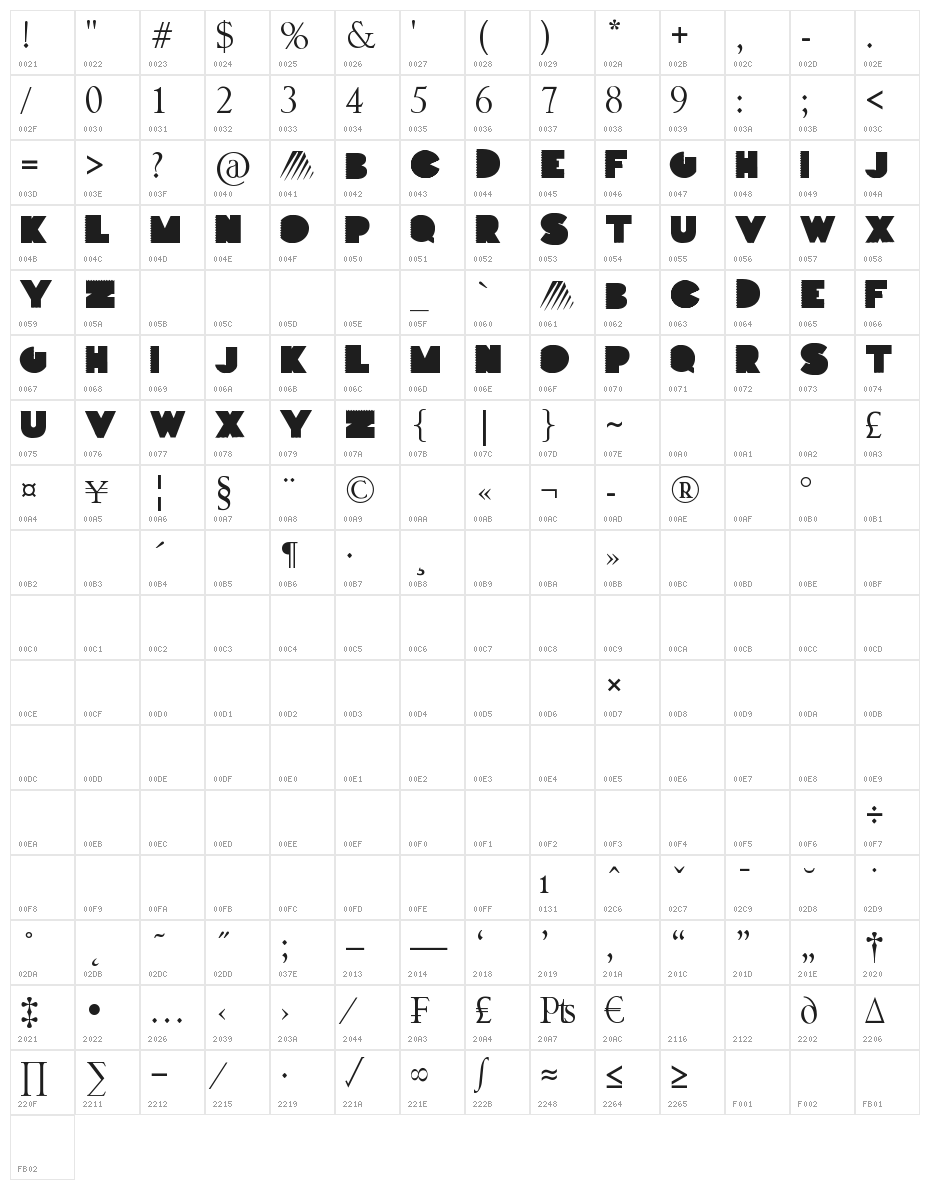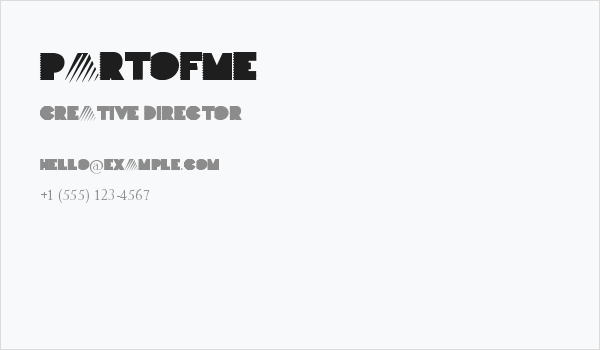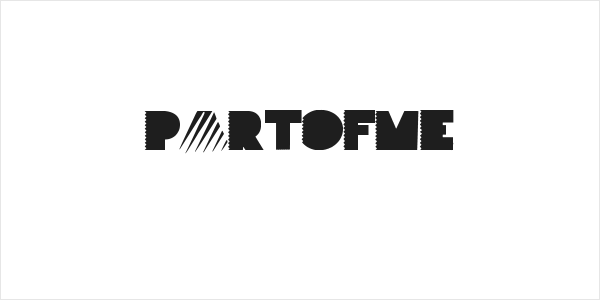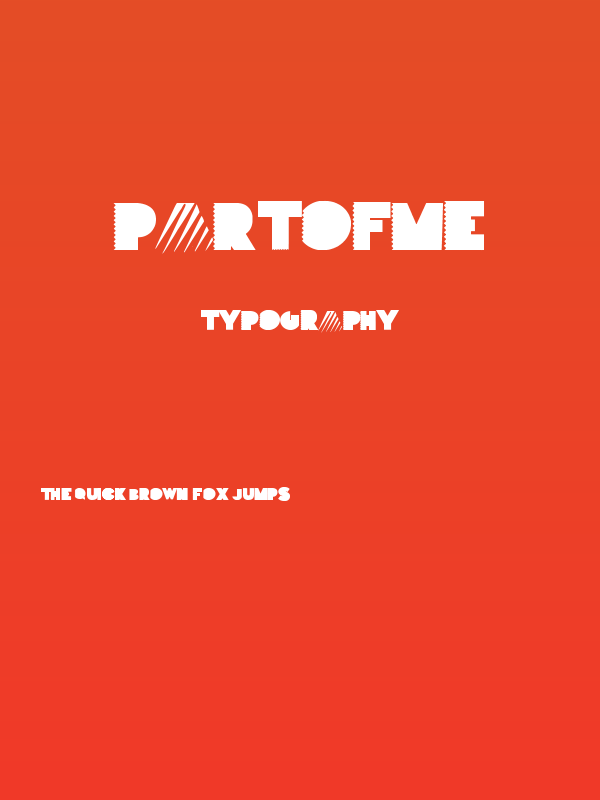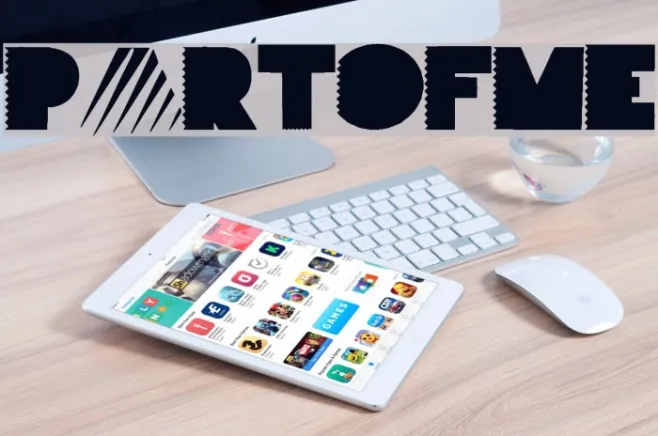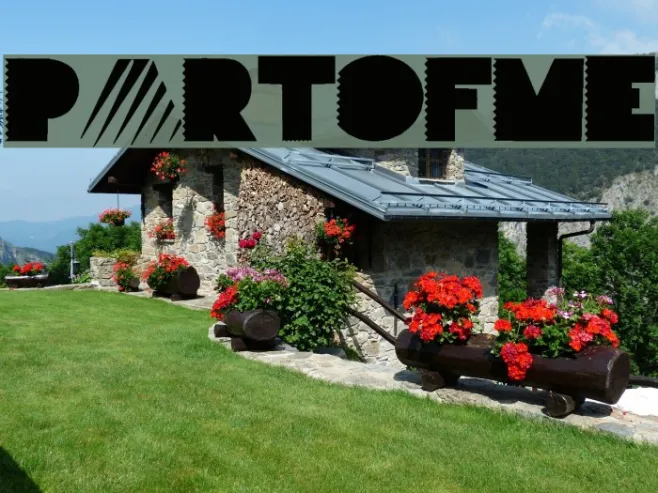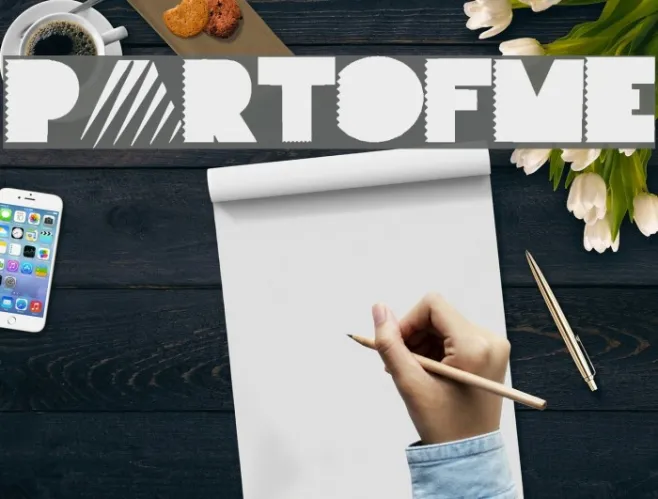
PARTOFME Font
PARTOFME Description
This font features a bold and striking design with a unique, decorative style. The uppercase letters are characterized by a bold, geometric structure with sharp angles and a distinct pattern that adds a dynamic visual interest. The lowercase letters maintain a similar style, ensuring consistency across the typeface. The numbers are designed with a modern flair, complementing the overall aesthetic. Special characters are included, maintaining the bold and decorative theme. This font is ideal for projects that require a strong visual impact and a modern, artistic touch.
PARTOFME UPPERCASE
PARTOFME LOWERCASE
PARTOFME OTHER CHARS
| Proposed Projects | Ideal for branding, posters, headlines, and any design project that requires a bold and artistic touch. |